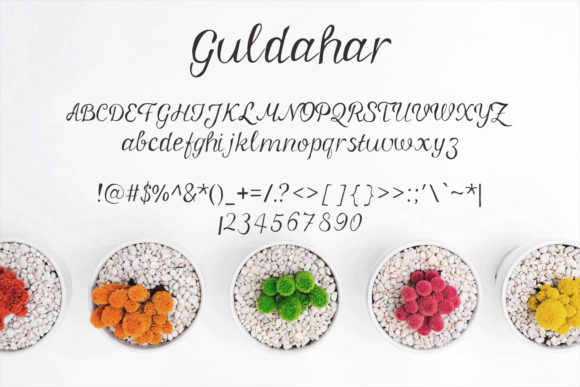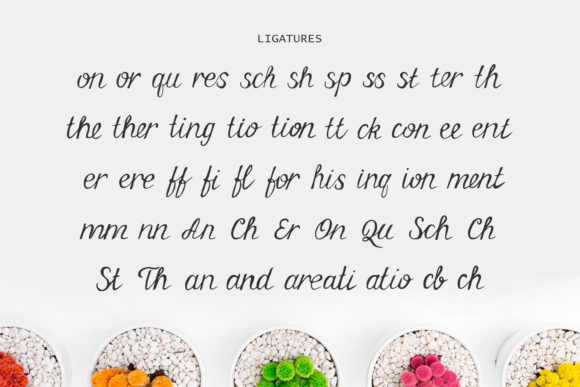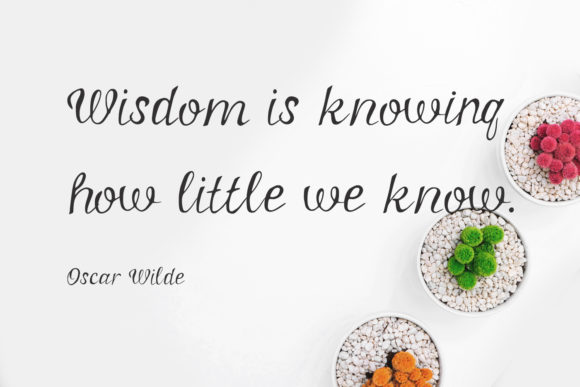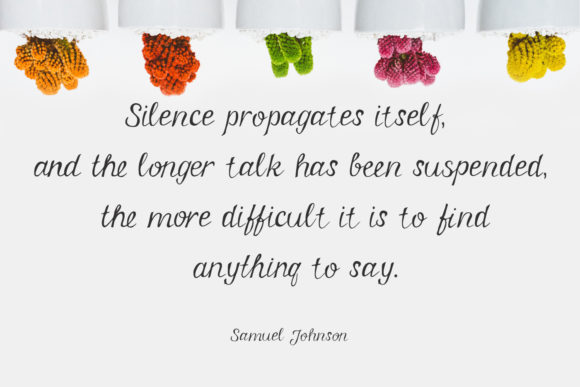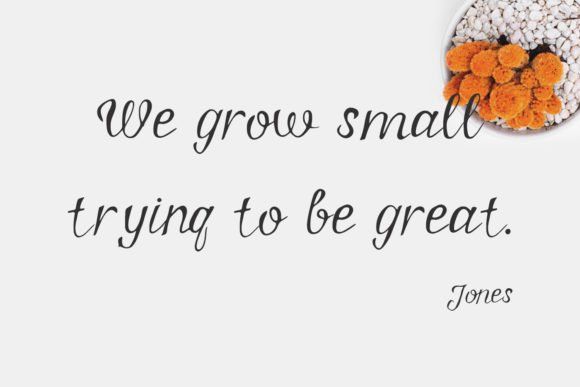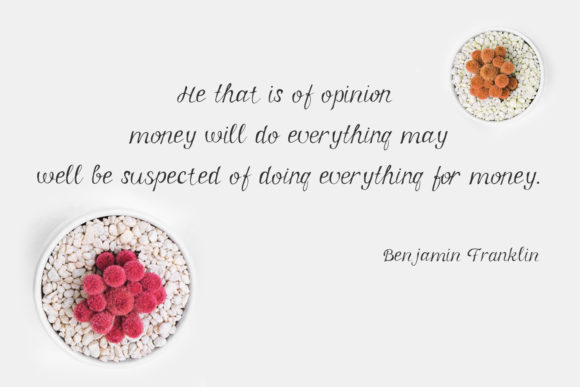
Introduction to Guldahar Font
Have you ever stared at a blank page, trying to find the perfect font to match your creative vision? It’s a moment many designers can relate to. The search for the ideal font can be overwhelming, but what if you stumbled upon one that effortlessly elevates your design to the next level?
Enter Guldahar Font, a stunning script font that’s sure to leave a lasting impression. With its elegant and flowing design, Guldahar Font is perfect for adding a handwritten touch to your wedding invitations, thank you cards, quotes, and more. Whether you’re working on a personal project or a commercial design, this versatile font is a valuable addition to your design resource.
Key Features of Guldahar Font
- The Guldahar Font is a high-quality design resource ideal for various creative projects, offering a unique and elegant touch.
- This font is particularly well-suited for use in creative projects that require a touch of sophistication and elegance, such as invitations, posters, and branding materials.
Honest Review: Guldahar Font
I recently stumbled upon the Guldahar Font, and I must say, it’s a fantastic design resource for any creative project. This beautiful font is perfect for adding a touch of elegance and sophistication to your work.
- ✨ High-Quality Typography: The Guldahar Font boasts stunning, high-quality typography that’s sure to elevate your design game.
- ✨ Transparent Background Option: The font comes with a transparent background option, making it perfect for use on images or graphics with complex backgrounds.
However, I did encounter a few limitations. ⚠️ The font only comes in a limited number of styles, which may not be ideal for designers who require a more extensive range of options.
Overall, I’m thoroughly impressed with the Guldahar Font. It’s a fantastic addition to any designer’s toolkit, and its high-quality typography and transparent background option make it perfect for a wide range of creative projects.
The Guldahar Font is a versatile and elegant design resource ideal for various creative projects. It offers a high-quality experience with its transparent background, making it perfect for overlaying on images or using as a standalone element.
Alternatives to Guldahar Font